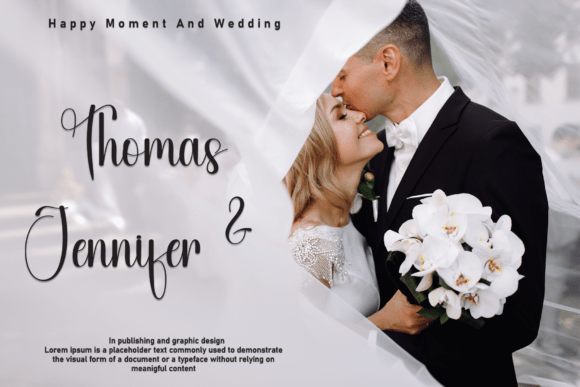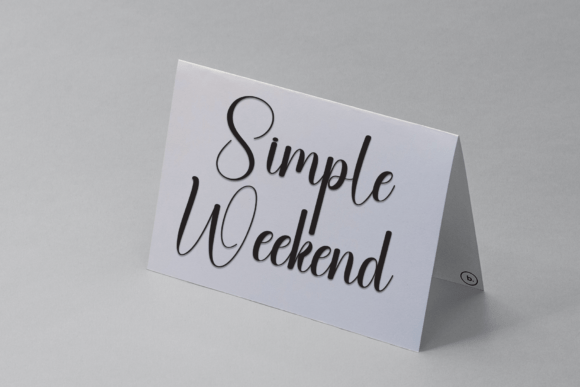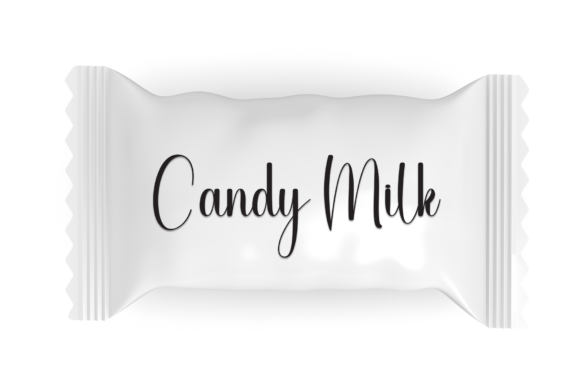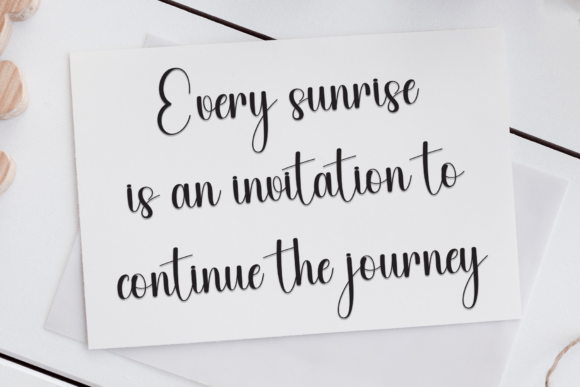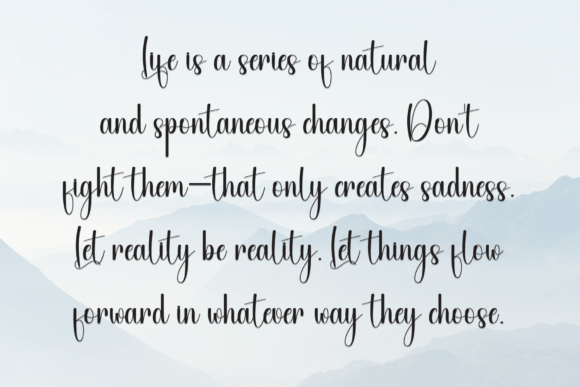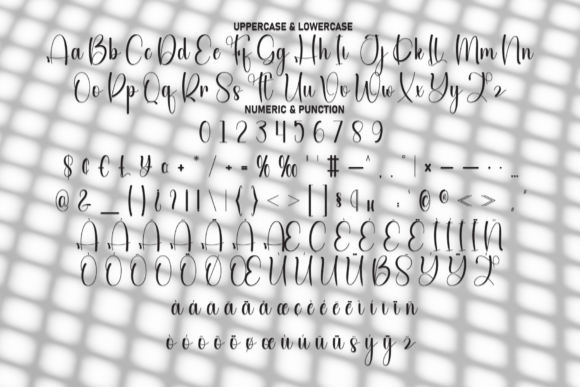
Unveiling the Enchantment of Grating Font
Have you ever been in the midst of crafting a design project, only to find yourself stuck on the perfect font? I recall a particularly frustrating experience while working on a wedding invitation project. My client wanted a font that exuded warmth, elegance, and a touch of whimsy. After scouring the internet for hours, I stumbled upon Grating Font – a captivating display font that would change the game for my design endeavors.
A Personal Review of Grating Font
As a designer, I’m always on the lookout for fonts that can elevate my projects and make them stand out. Grating Font has become a staple in my font library, and here’s why:
- ✨ Unique and eye-catching: Grating Font boasts an enchanting, handwritten quality that immediately captures attention.
- ✅ Versatile: This font is perfect for a wide range of design projects, from wedding invitations and greeting cards to branding and packaging.
- 💕 Emotional connection: Grating Font radiates an inviting, affable ambiance that helps create an emotional connection with your audience.
However, no font is perfect, and Grating Font has a few minor quirks:
- 🤔 Limited use in body text: Due to its decorative nature, Grating Font might not be the best choice for lengthy body text.
- ⚠️ Kerning issues: As with any font, you might encounter kerning issues, especially when using all caps or large font sizes.
The Story Behind Grating Font
Grating Font was crafted with love and care by a talented type designer who aimed to recreate the enchantment of handwritten correspondence. Inspired by vintage letters and diaries, this font embodies the warmth and personality of handwritten text.
| What makes Grating Font unique? | Grating Font boasts a captivating, handwritten quality that radiates an inviting ambiance, making it perfect for designs that require a personal touch. |
| Is Grating Font suitable for body text? | While Grating Font is primarily designed for display purposes, it can be used for short paragraphs or captions. However, it’s not recommended for lengthy body text. |
Grating Font has become a staple in my design toolkit, and I’m confident it will do the same for you. With its enchanting, handwritten quality and versatility, this font is sure to elevate your designs and leave a lasting impression on your audience.